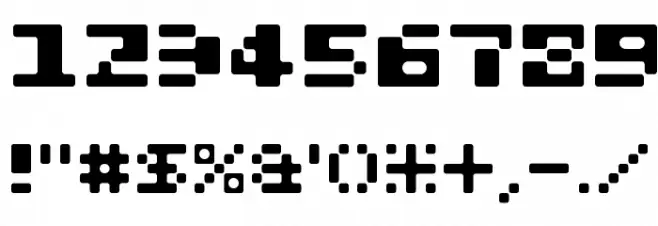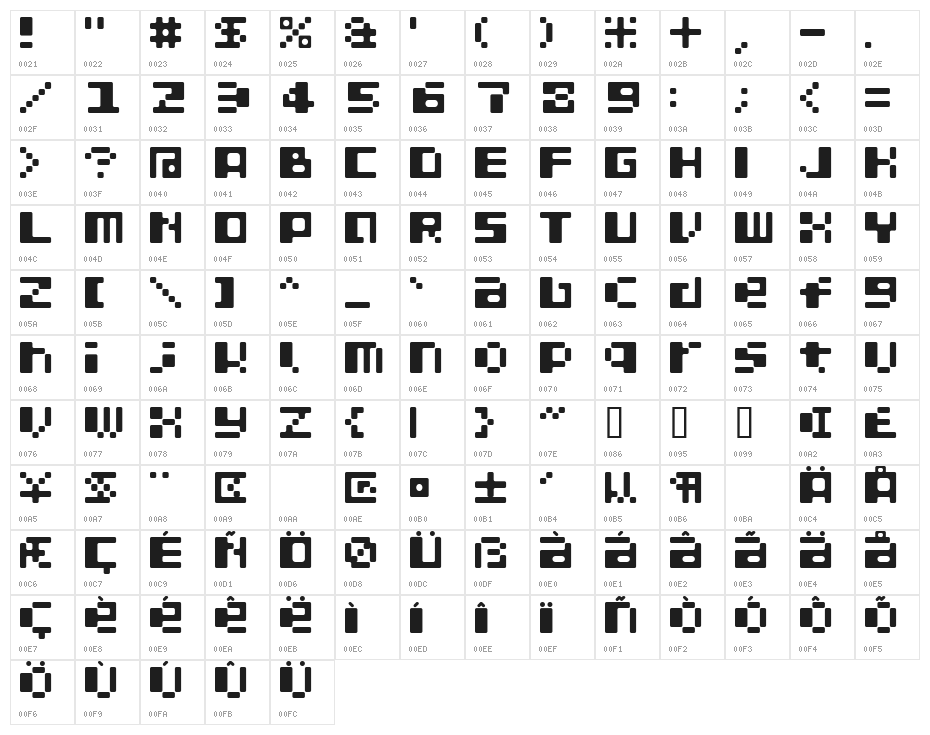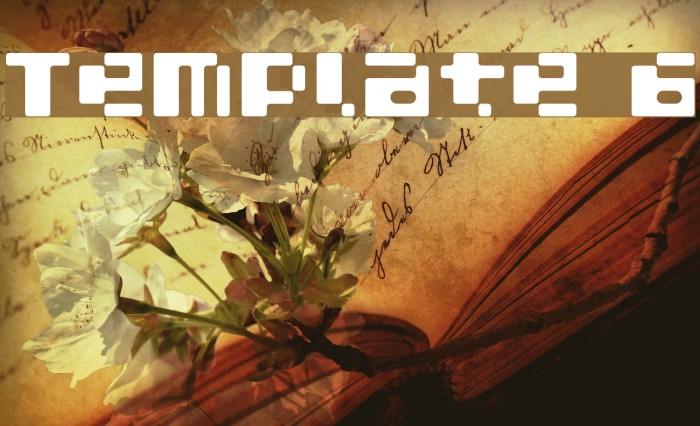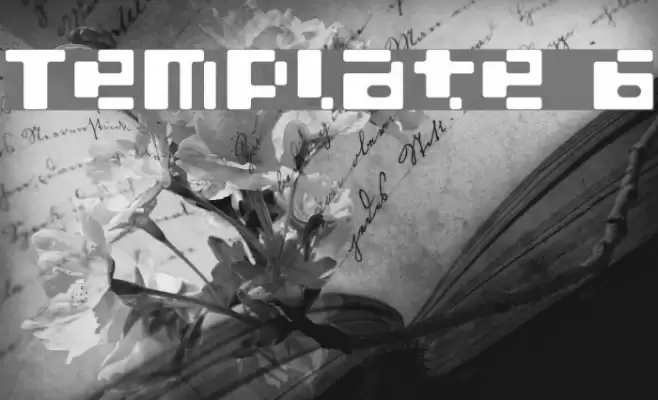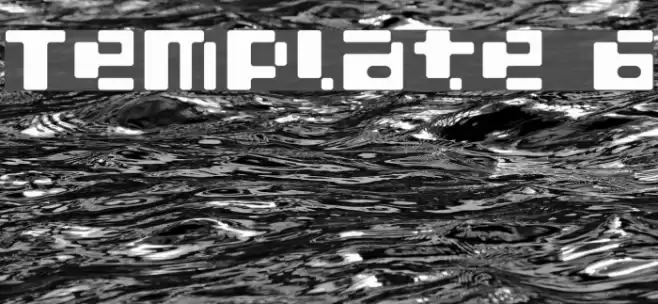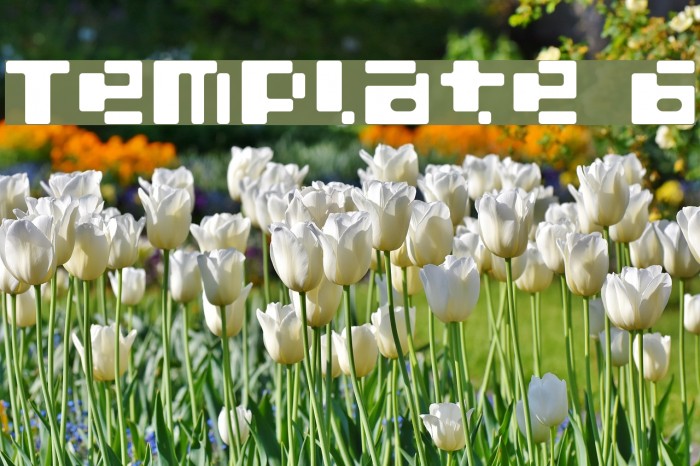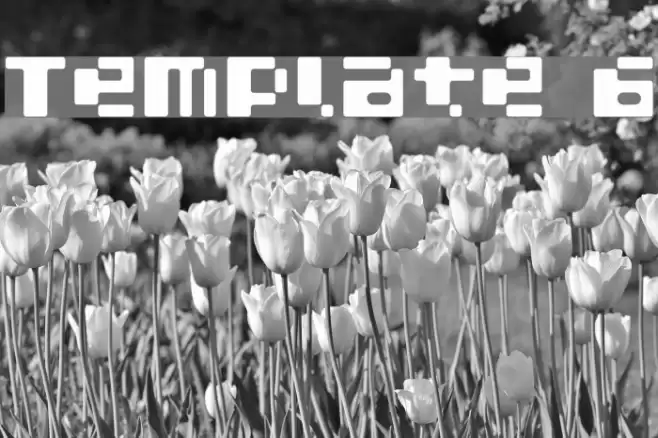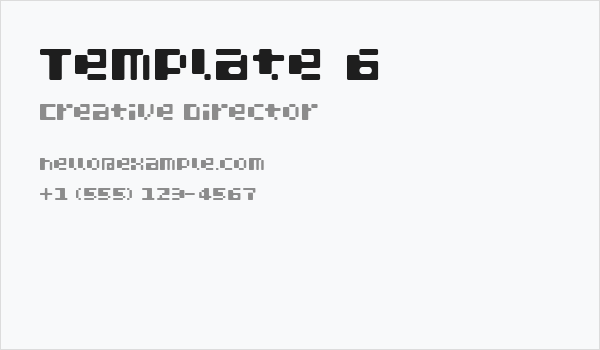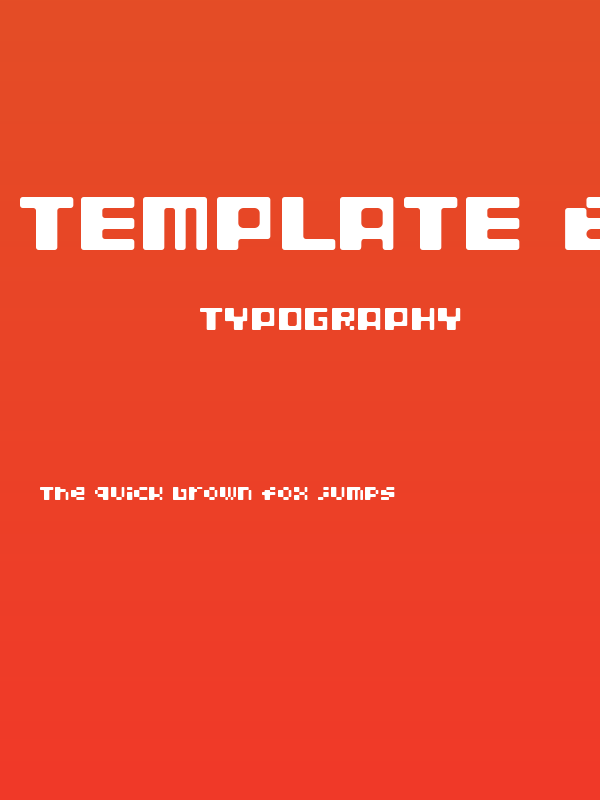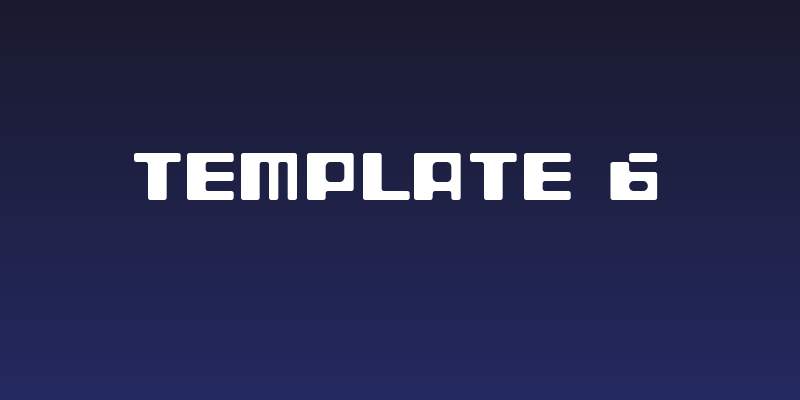
Template 6 Font
Template 6 Description
This font features a bold, geometric design with a distinctly modern and futuristic aesthetic. The characters are constructed with a blocky, pixel-like structure, giving it a digital or tech-inspired feel. The uppercase and lowercase letters maintain a consistent style, with rounded edges and uniform thickness, creating a cohesive look. The numbers and special characters follow the same design principles, ensuring readability while maintaining the unique style. This font is ideal for projects that require a contemporary and edgy appearance, such as tech branding, digital art, or video game design.
| Proposed Projects | Tech branding, digital art, video game design, futuristic posters. |